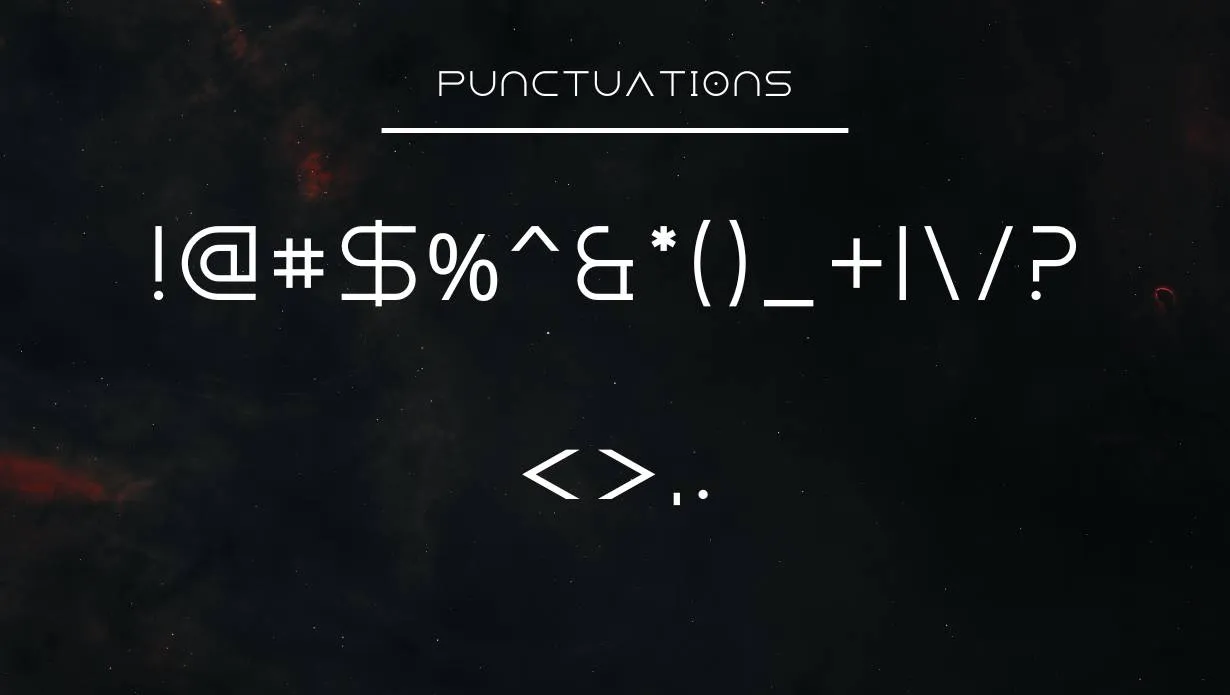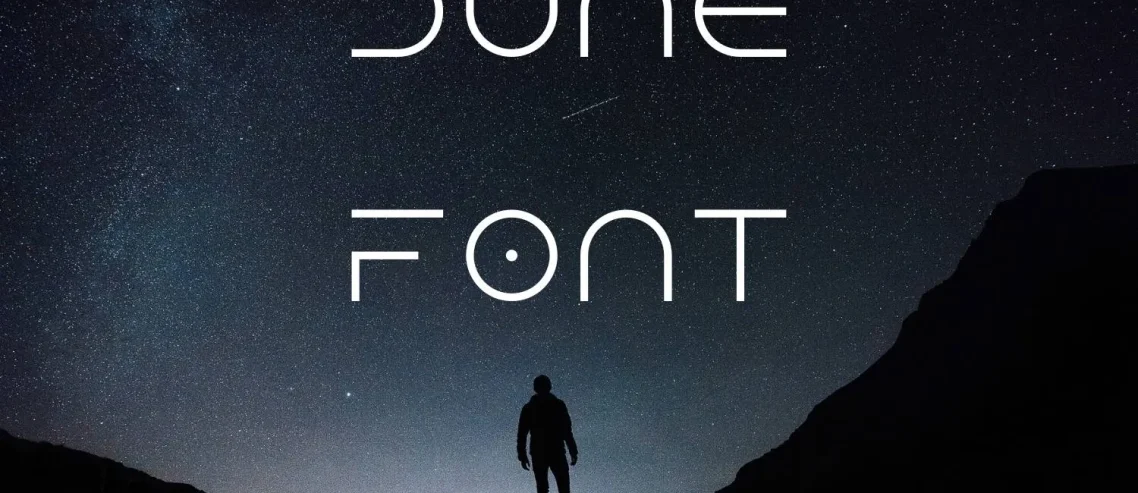
Dune font is actually a famous American science fiction movie that is directed by Denis Villeneuve which in a short span gained huge popularity.
This insane popularity of the movie grabbed the attention of many designers toward its logo and they could not refrain themselves not to take notice. For that reason, they started examining the poster to know about the font used in it or the font that is alike it.